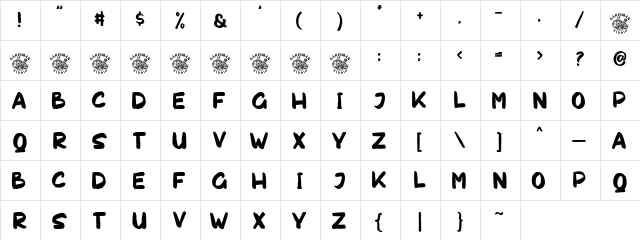
Chakie Regular
| Foundry | Garisman Studio |
| Designer | Risman Ginarwan |
Design Context for Chakie Typeface
Chakie is a composed and adaptable typeface that performs quietly and consistently across a wide range of design contexts.